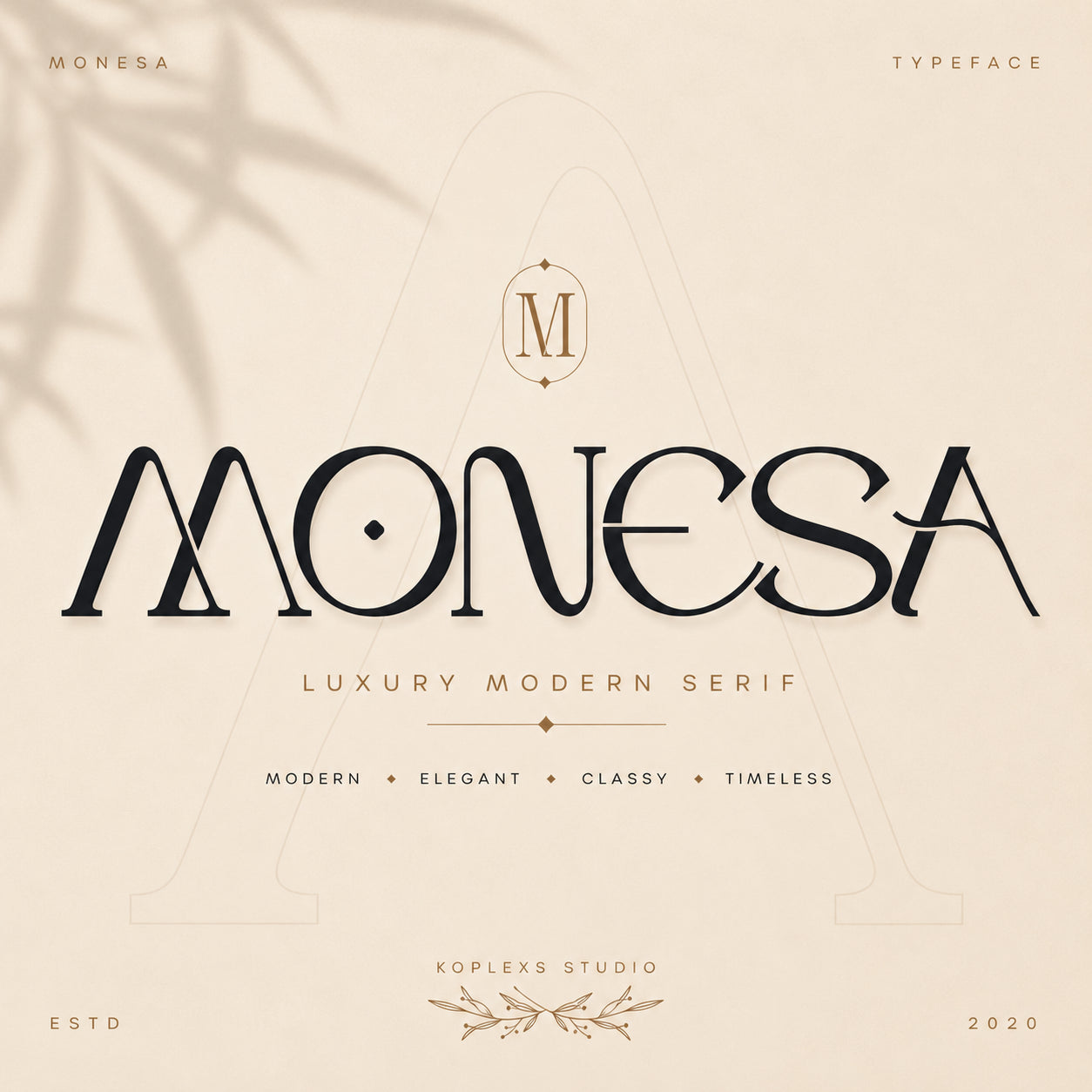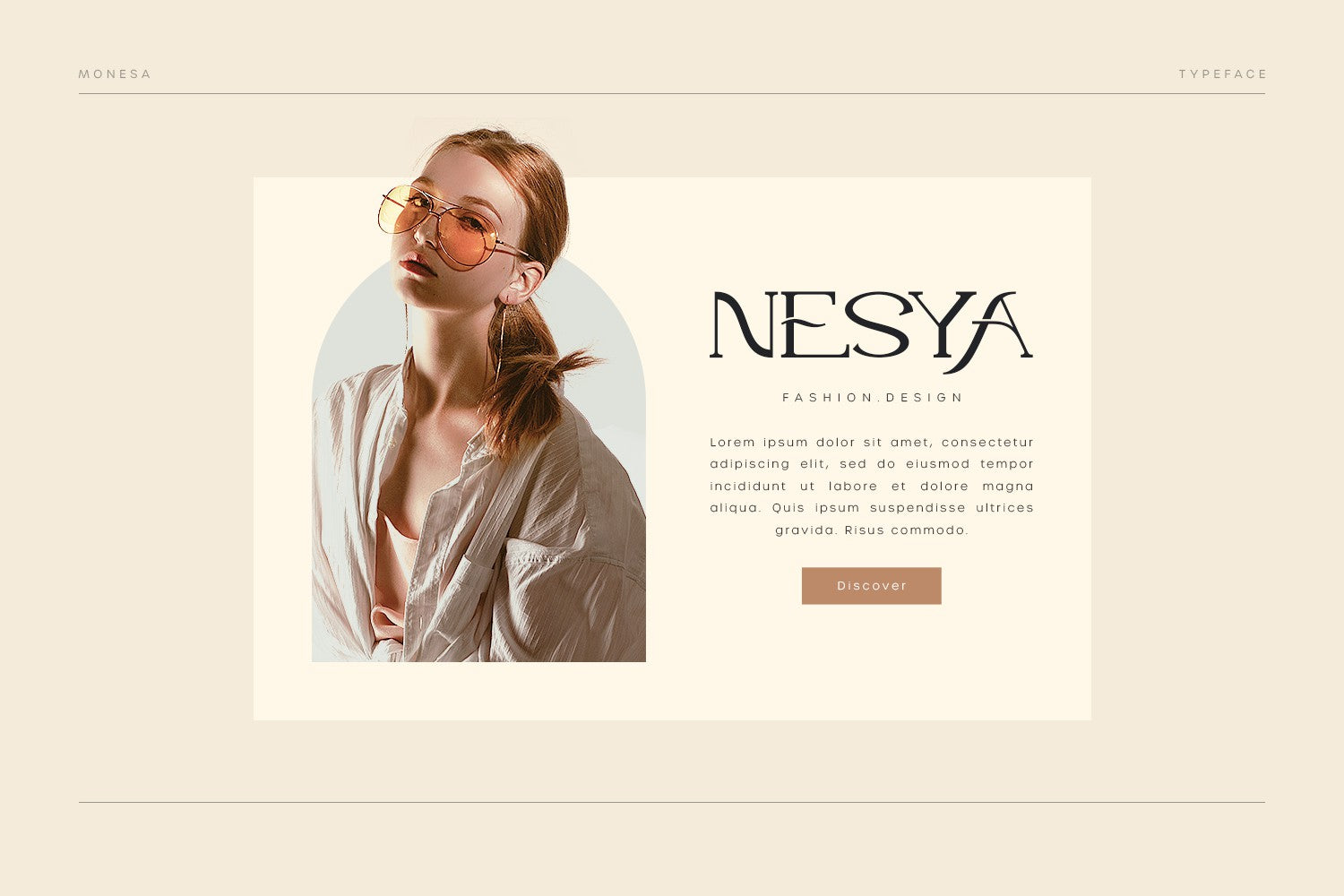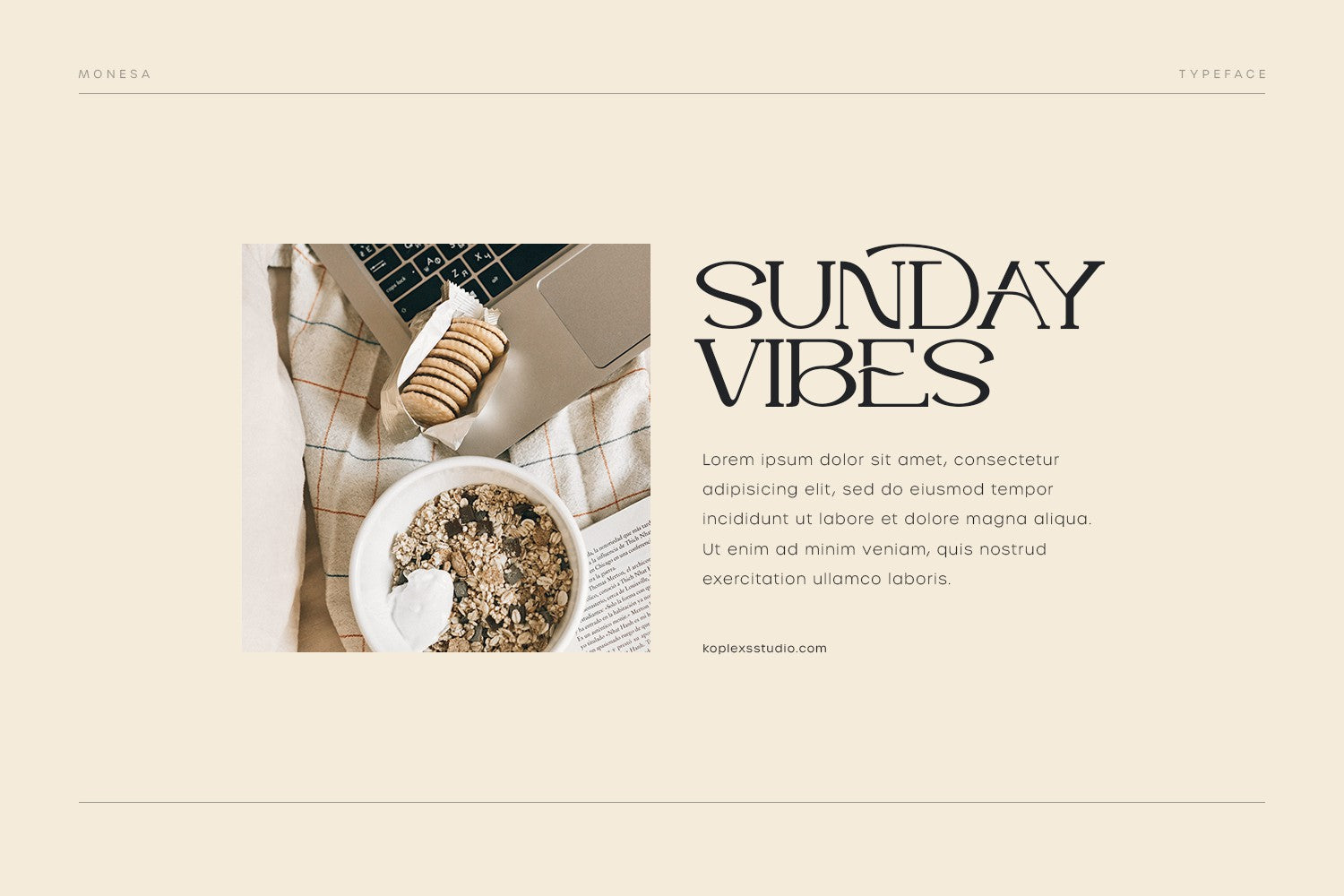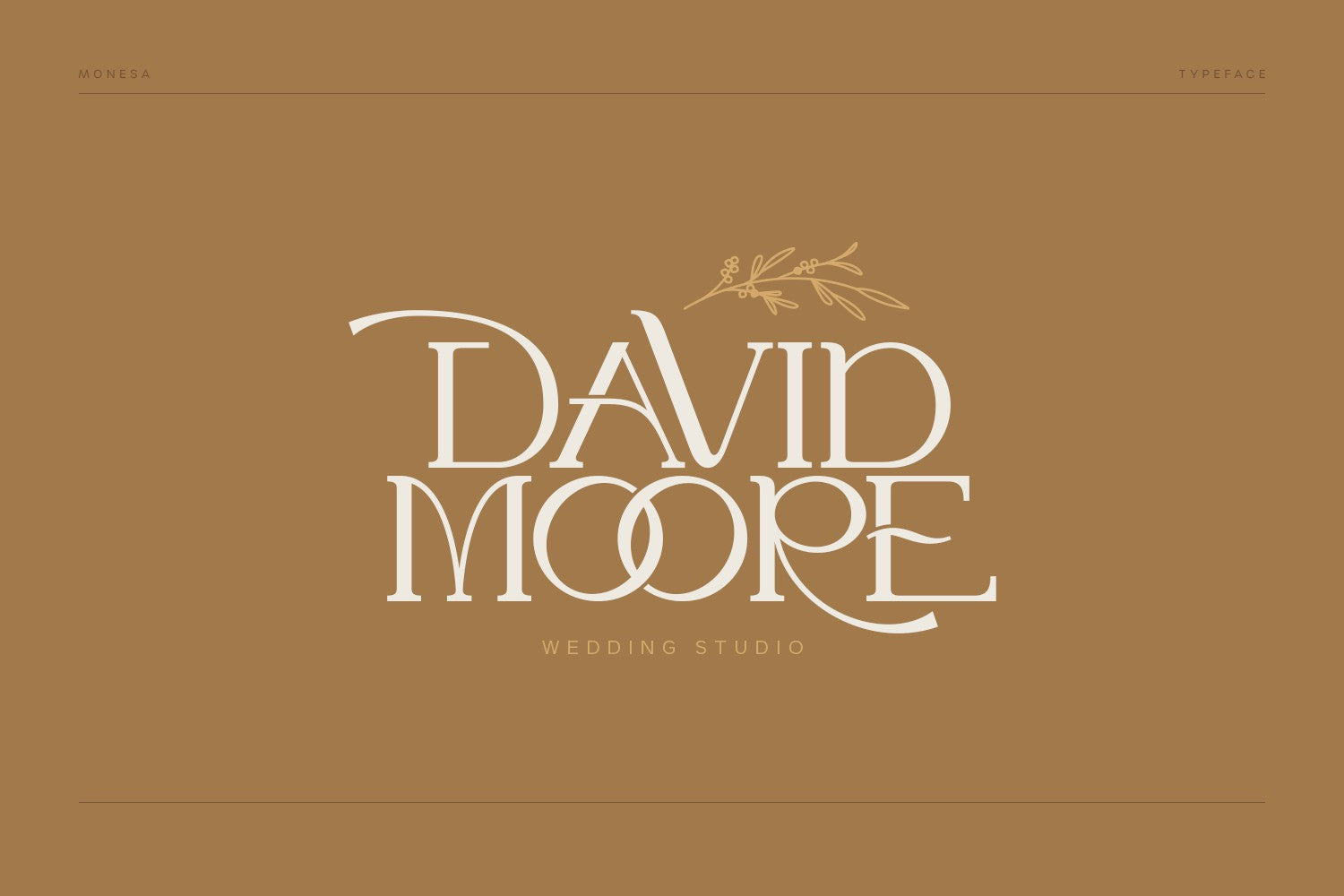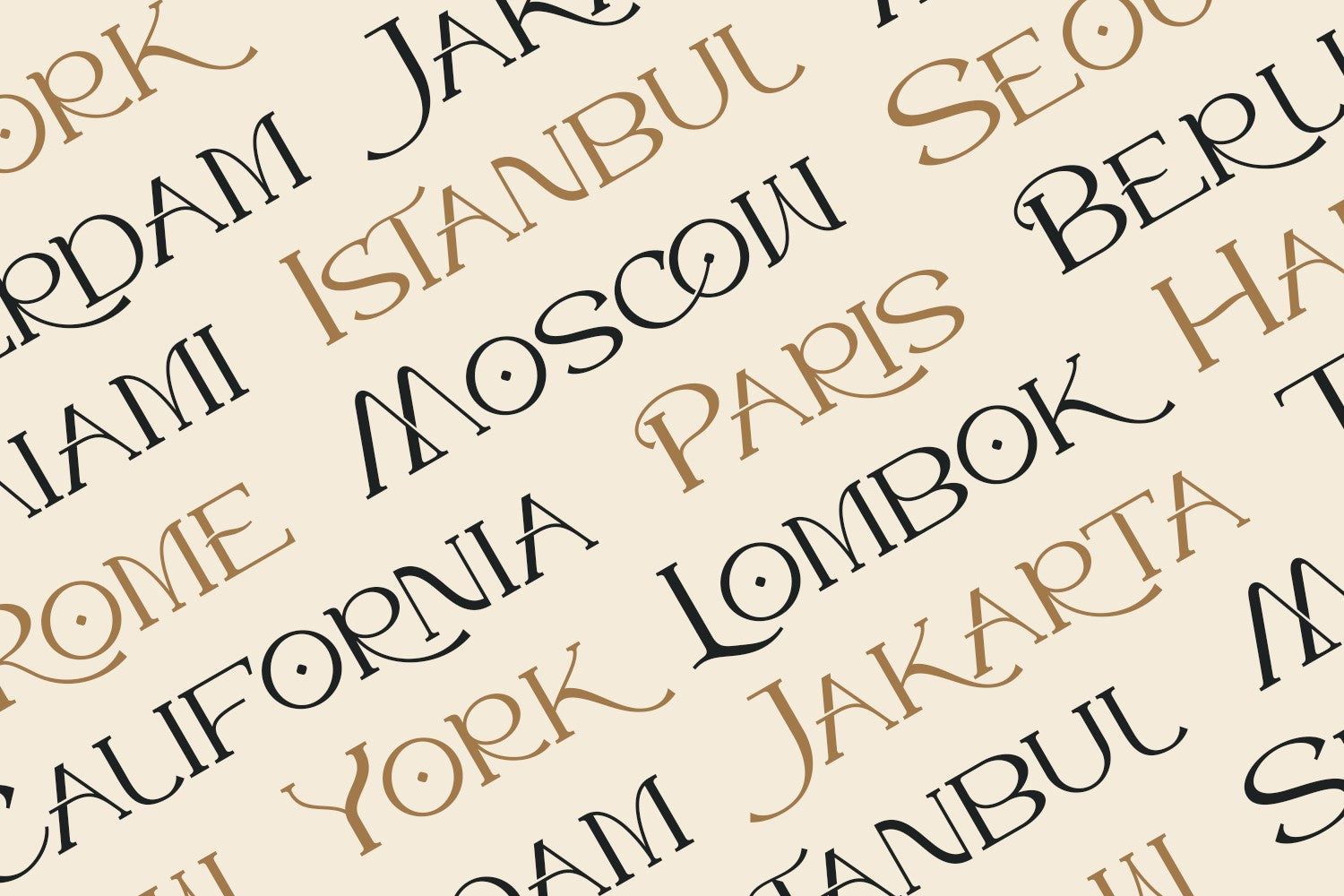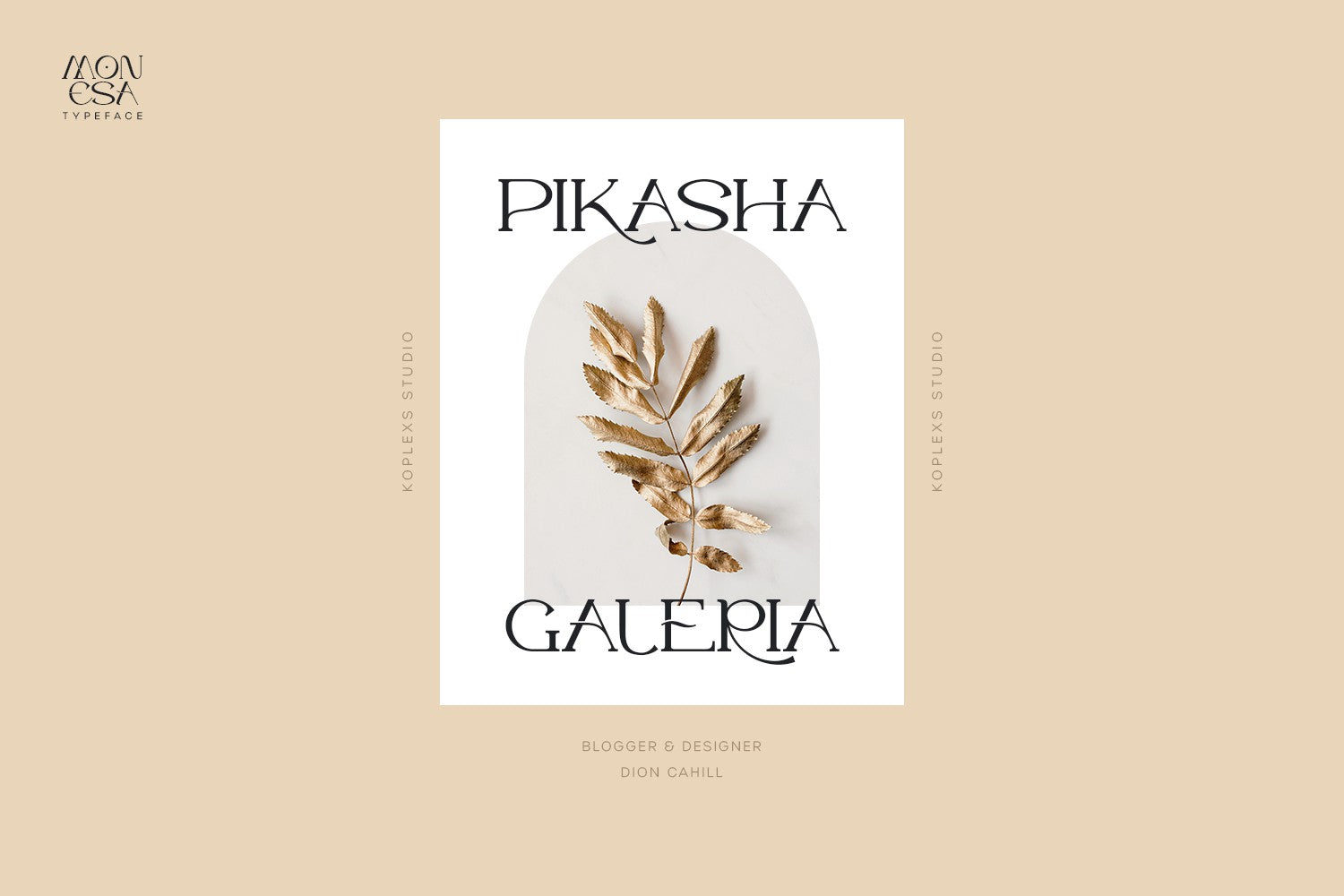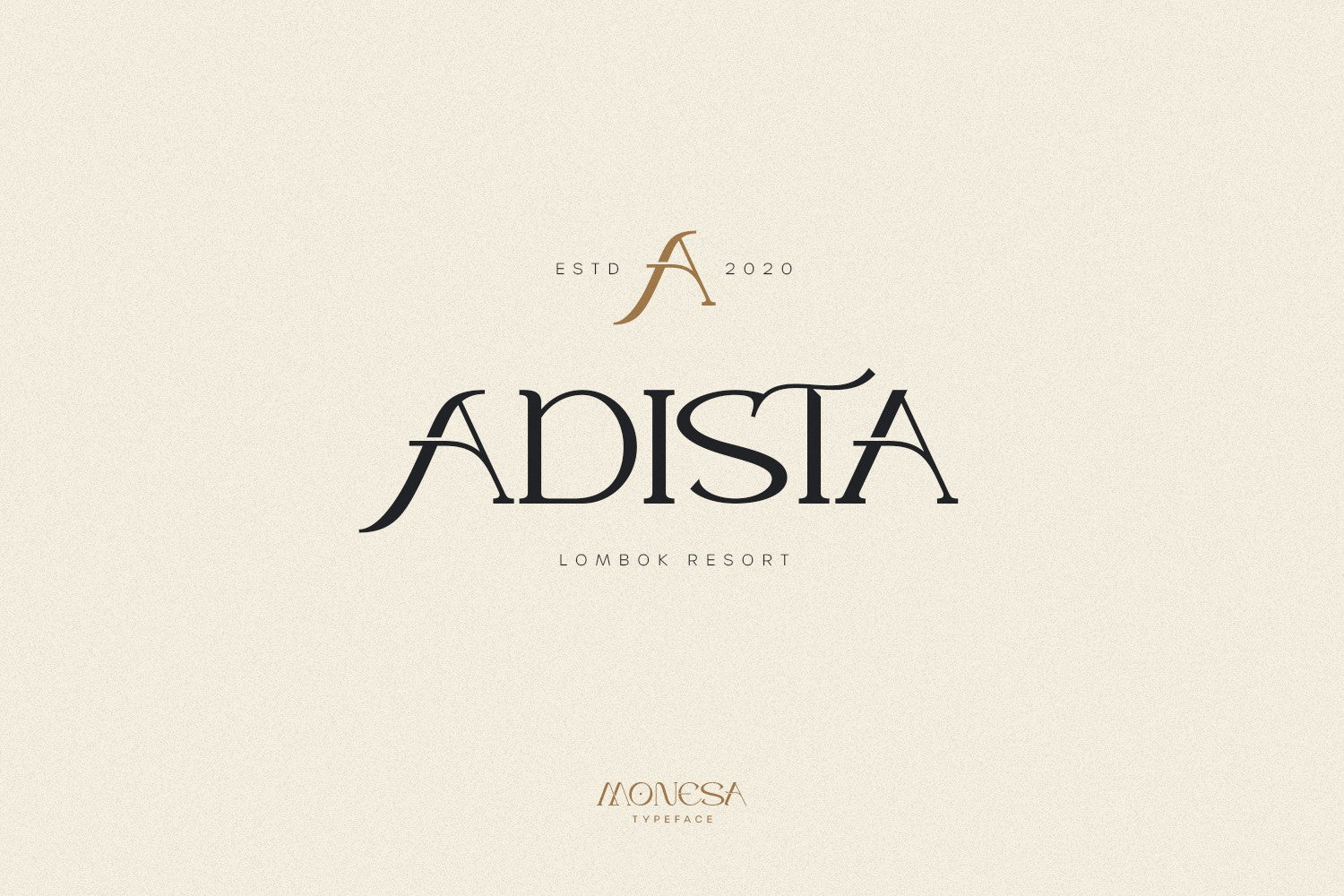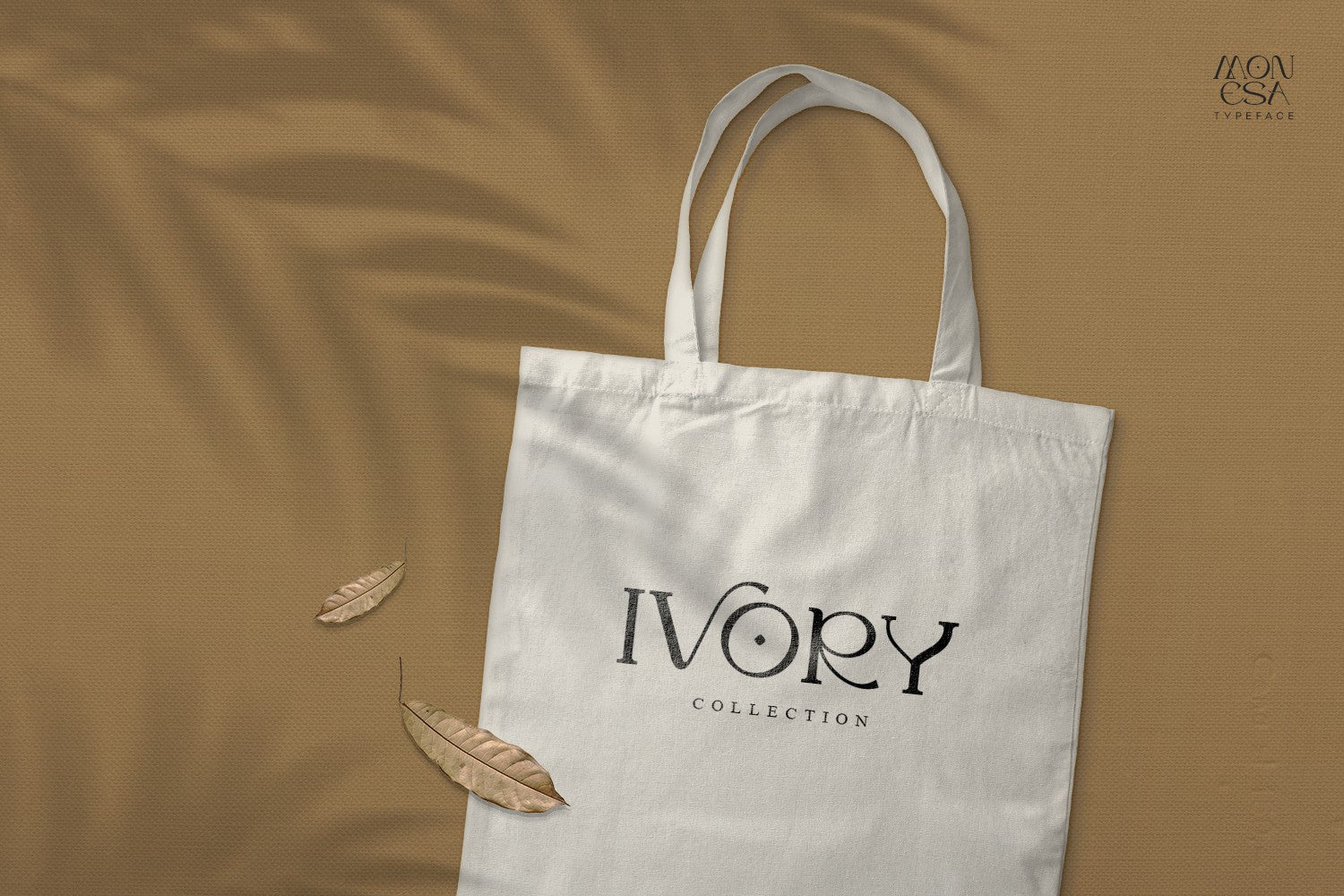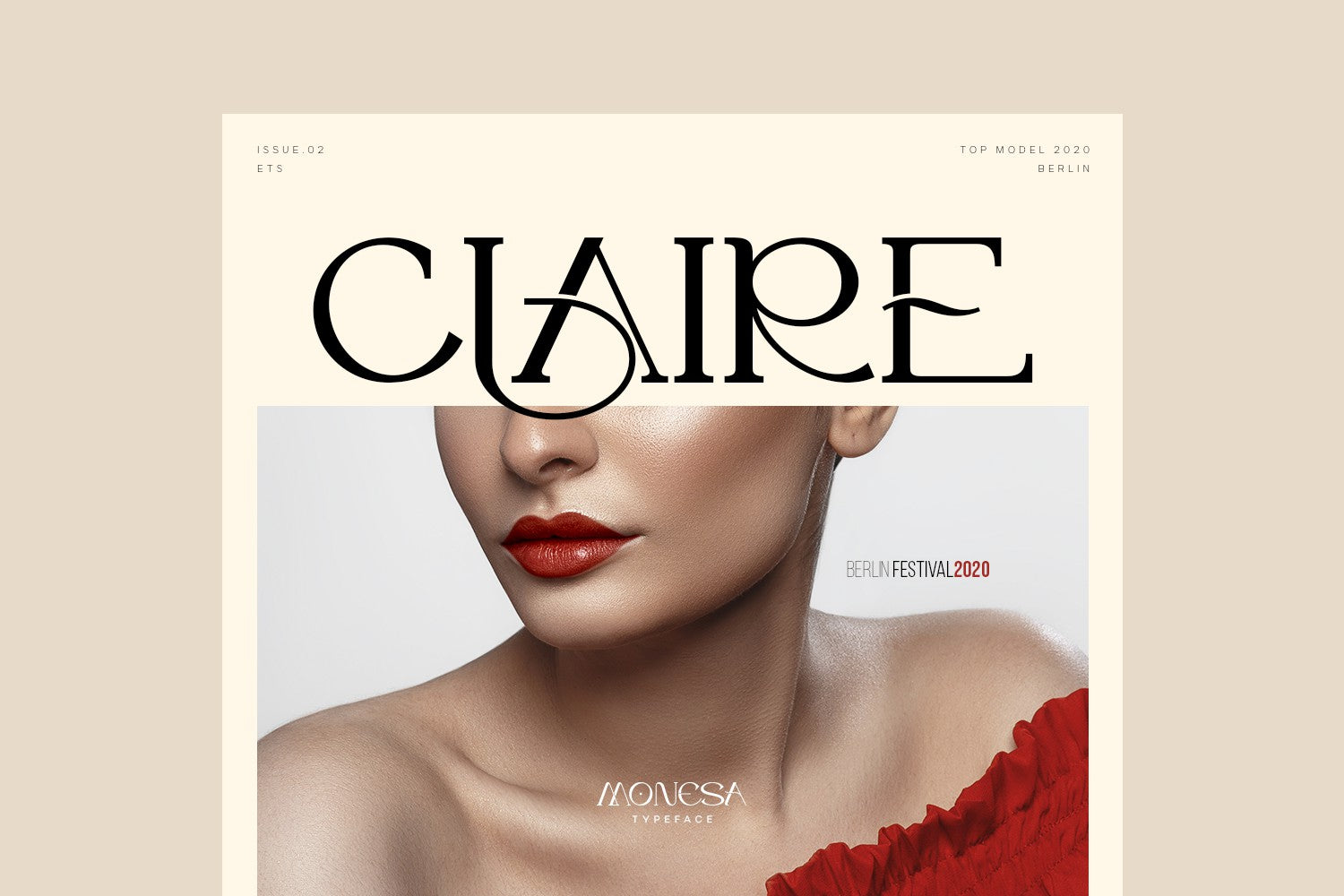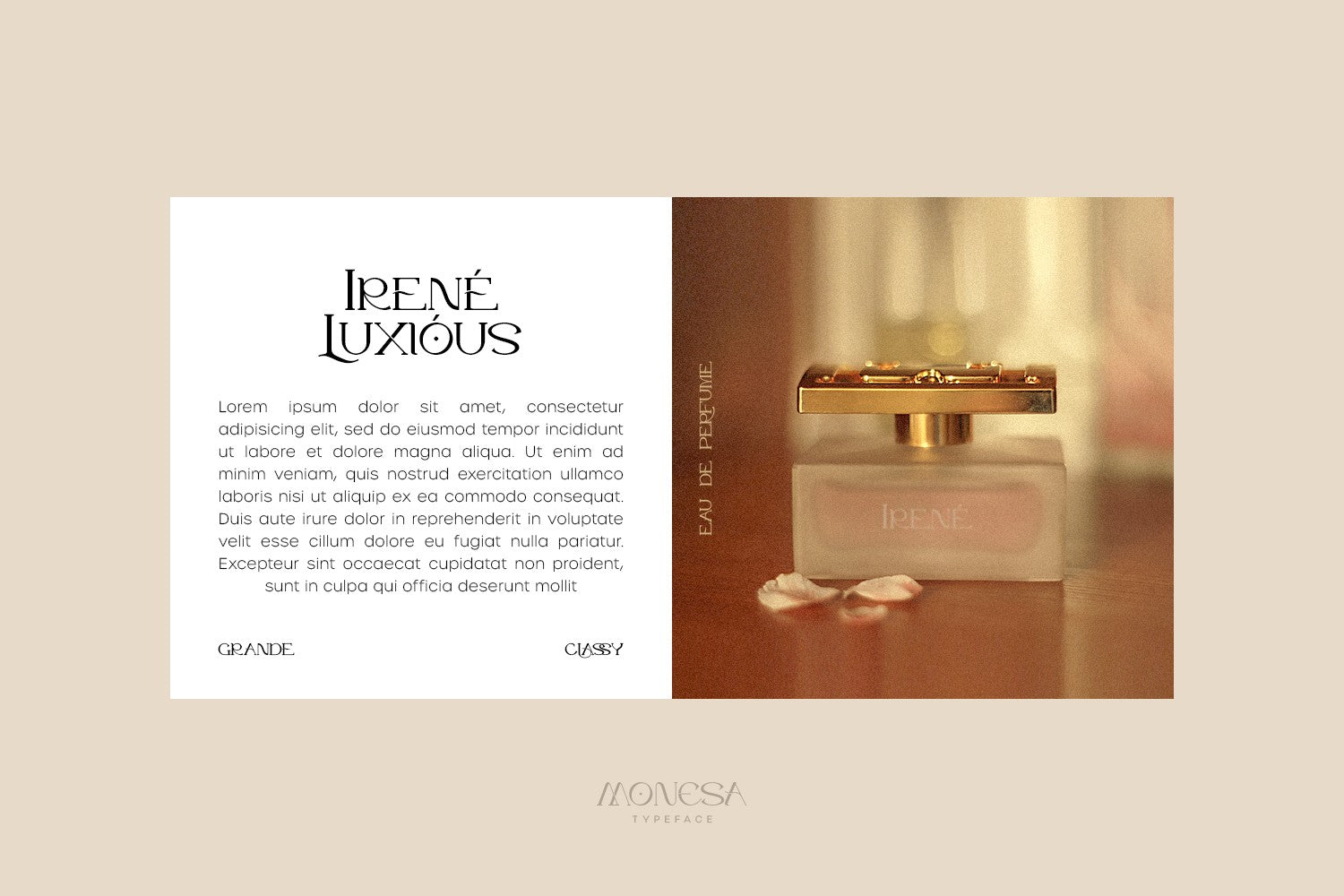
MONESA Font – Luxury Modern Serif Typeface
MONESA Font – Luxury Modern Serif Typeface for Elegant Branding
MONESA Font is a luxury modern serif typeface designed to bring elegance, beauty, and timeless style to your creative projects. With refined letterforms, stylish alternates, and beautiful ligature features, MONESA is perfect for designers who want a sophisticated and premium look.
This font is ideal for logo design, branding, wedding invitations, cosmetic packaging, fashion projects, editorial layouts, magazine covers, posters, website headers, social media graphics, product packaging, and luxury brand identities. Its classic serif details combined with a modern aesthetic make it a versatile choice for both print and digital design.
Create stunning designs with MONESA Font and give your brand a refined, elegant, and luxurious visual identity.
MONESA Font is a luxury modern serif typeface featuring refined letterforms, stylish alternates, and ligature options, designed for elegant branding. It offers a versatile choice for both print and digital design, suitable for a variety of applications including logos, packaging, and editorial layouts.